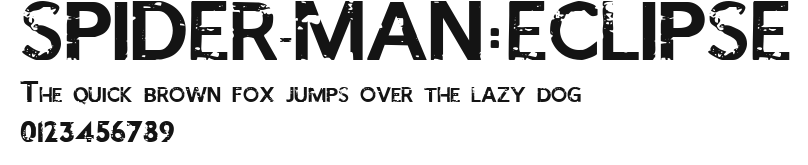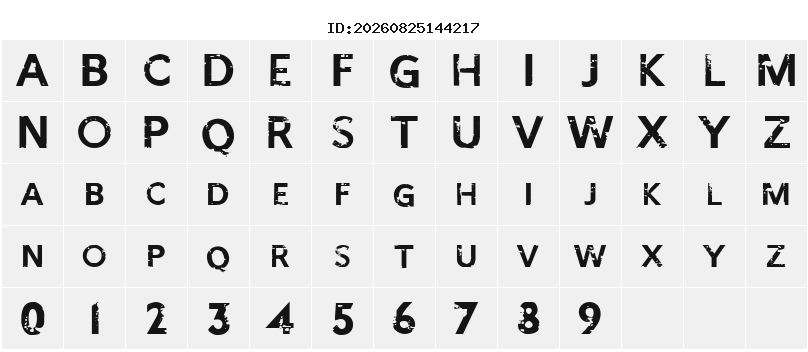
SPIDER-MAN:ECLIPSE Preview
• Font Name: SPIDER-MAN:ECLIPSE
• Font ID: SpideRaY@www.windowstipsclub.com: SPIDER-MAN:ECLIPSE: 2012
• Full Font Name: SPIDER-MAN:ECLIPSE
• Version: Version 1.001 © SpideRaYsfoNtS 2011-2012
• PostScript Name: SPIDER-MAN:ECLIPSE
• Character Count: 179
• Designer: SpideRaY
• Manufacturer: SpideRaY
About SPIDER-MAN:ECLIPSE.ttf
SPIDER-MAN:ECLIPSE.ttf is a modern, elegant sans-serif font designed for ultimate readability and visual harmony. Perfect for branding, headlines, web design, and print materials.